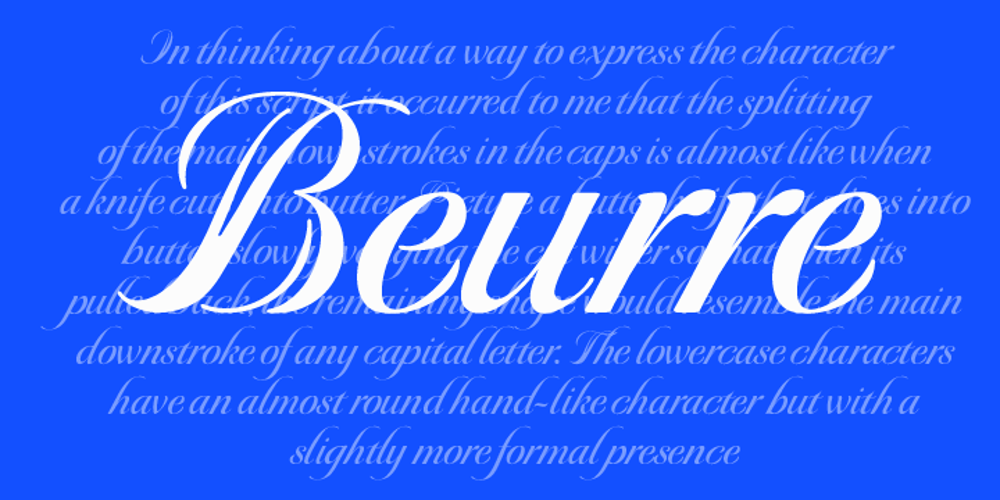
Beurre
Beurre font
Beurre Font Family was designed by Robbie de Villiers and published by Wilton Foundry. Beurre contains 1 styles and family package options. In thinking about a way to express the character of this script, it occurred to me that the splitting of the main downstrokes in the caps is almost like when knife cuts into butter. Picture a butter knife that slices into butter, slowly wedging the cut wider so that when it is pulled back, the remaining shape would resemble the main downstroke of any capital letter. The lowercase characters have an almost roundhand-like character but with a slightly more formal presence. Available in Postscript, Truetype and Opentype for both Mac and Windows, Beurre is ideal for Menu’s, Invitations and pretty much anywhere you need a reasonably strong, but friendly legible script. Enjoy!